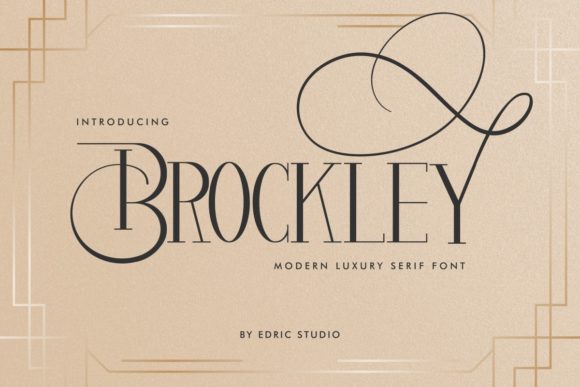
The Brockley Font: A Luxurious Addition to Your Design Arsenal
I’ll never forget the time I was working on a high-end branding project for a luxury fashion client. I had spent hours perfecting the logo design, but something was missing. The font I had chosen just didn’t have the elegance and sophistication that the brand demanded. That’s when I stumbled upon the Brockley font, and it completely transformed the project. In this article, I’ll share my experience with this stunning font and provide a comprehensive guide on how to make the most of its features.
An Honest Review of Brockley Font
What I Love About Brockley Font
• ✨ Luxurious and modern serif design: Brockley font boasts a unique style that exudes elegance and sophistication.
• ✅ Beautiful, fresh, and elegant characters: Each character is carefully crafted to perfection, making it ideal for high-end branding and logo design.
• 💫 PUA encoded for easy access to glyphs and swashes: The font’s PUA encoding makes it easy to access all the glyphs and swashes, giving you endless creative possibilities.
While Brockley font is an excellent choice for many design projects, there are a few things to keep in mind:
The Backstory of Brockley Font
Brockley font was designed with the goal of creating a luxurious and modern serif font that would meet the demands of high-end branding and logo design. The designer drew inspiration from classic serif fonts, but with a fresh and elegant twist. The result is a font that’s both timeless and contemporary, making it perfect for a wide range of design projects.
Q: What is the Brockley font?
A: Brockley font is a luxurious and modern serif font family with a unique style, perfect for branding, logo design, photography, and signature.
Q: Is Brockley font PUA encoded?
A: Yes, Brockley font is PUA encoded, which means you can access all the glyphs and swashes with ease.